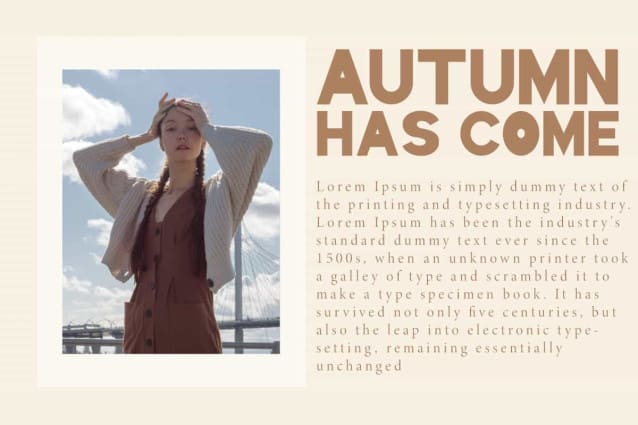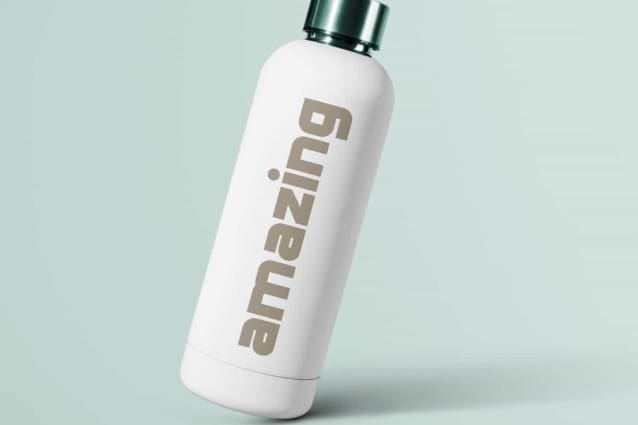
Varysburg Font
Varysburg Font is a bold stylish display font by NoahType. This font has a modern style that fits the current era so that its appearance is not outdated. It will be good for any designs, such as brand image, cover, custom design, invitation, label, marketing material, menu, poster, product packaging, quotes, signage, stationery, web, and many more!
Varysburg Font includes a complete set of Uppercase and Lowercase Basic Characters with different looks for both, Numerals, Punctuation, and Symbol. The characters of this font will give trendy look and also a perfect choice for many industries, such as accessories, advertising, camping, event or festival, fashion, movie, photography, printing, publishing, sport, travel, etc.